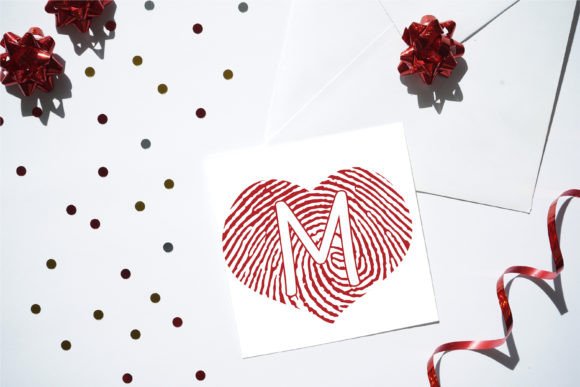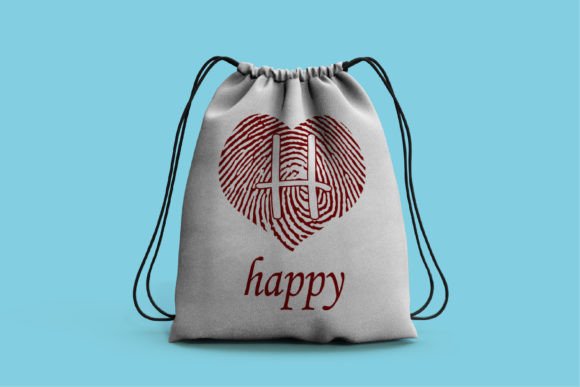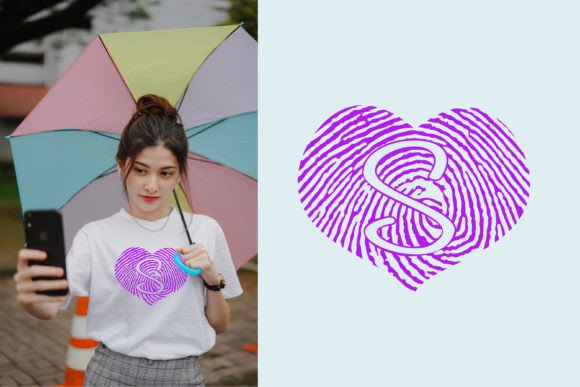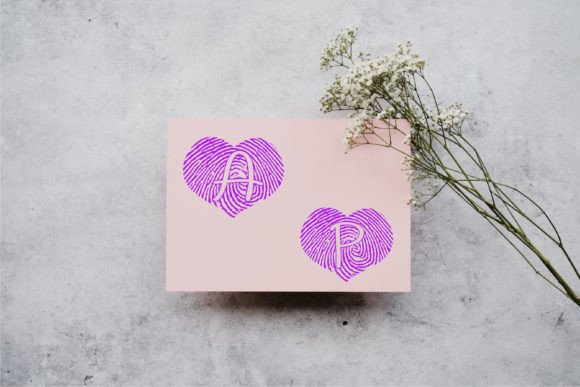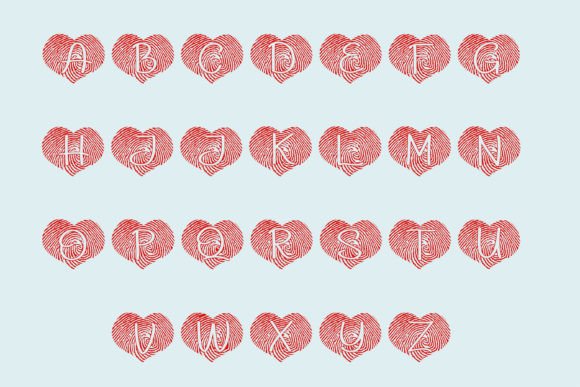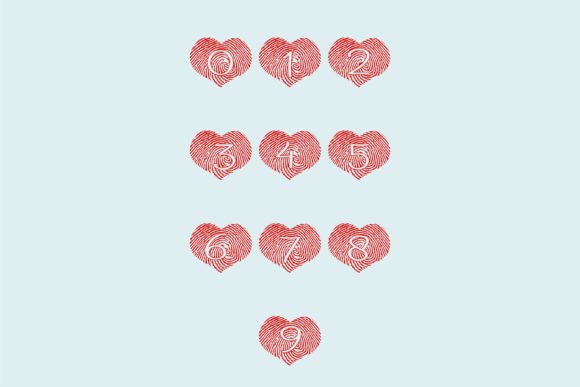
Introduction to Love Identify Font
Do you remember the moment when you first fell in love with a font? Maybe it was a beautiful cursive script, a elegant sans-serif, or a quirky handwritten style that caught your eye. For designers, discovering a new font can be like stumbling upon a hidden treasure, and it’s a feeling that never gets old. Today, we’re excited to introduce you to the Love Identify Font, a stunning monogram Valentine’s font that will add a touch of romance to your next creative project.
Whether you’re working on a Valentine’s Day card, a t-shirt design, or an invitation, the Love Identify Font is the perfect design resource to elevate your project. With its high-quality design and transparent background, this font is a valuable asset for any designer looking to create stunning visuals. And the best part? It’s available for free download, making it a must-have for any design enthusiast.
- High-quality design for various creative projects, including logos, icons, and graphics.
- Includes a transparent background, allowing for seamless integration with different backgrounds.
- Unique and stylish design, perfect for adding a touch of elegance and sophistication to any creative project.
Honest Review: Love Identify Font
I recently had the chance to work with the Love Identify Font in one of my creative projects, and I was excited to see how it would turn out.
First impressions: the font is absolutely stunning, and it’s great to see that it’s available as a free download. The high quality of the font makes it a great design resource for any project.
- ✨ The font’s unique and playful style makes it perfect for projects that need a touch of personality.
- ✨ The transparent background option allows for easy customization and flexibility in design.
- ✨ The font’s high quality means it looks great at any size, making it a versatile choice for any creative project.
- ⚠️ The font’s character set is a bit limited, which may be a concern for projects that require a wide range of characters.
- ⚠️ The font may not be suitable for projects that require a lot of technical or scientific content.
Overall, I’m really impressed with the Love Identify Font. It’s a great addition to any designer’s toolkit, and its unique style makes it a great choice for creative projects. With a bit more development to address the limitations, I think it has the potential to be a top-notch design resource.
The Love Identify Font is a high-quality, free download design resource ideal for creative projects. Its unique style and transparent background make it perfect for various applications.
Experiment with different font sizes, colors, and arrangements to create visually appealing designs. Use the transparent background to create a sense of depth and layering.
The Love Identify Font is suitable for various creative projects, including:
- Wedding invitations and decorations
- Birthday cards and party decorations
- Valentine’s Day and love-themed designs